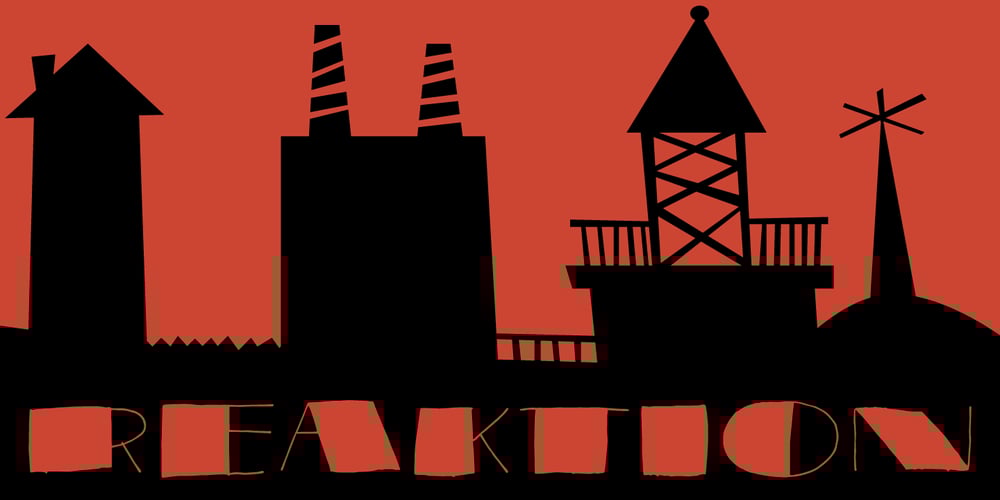
Reaktion
Reaktion font
Reaktion Font Family was designed by Jakob Fischer and published by PizzaDude.dk. Reaktion contains 2 styles and family package options. Reaktion is a loose handmade Art Deco font. Comes in two different versions: regular (with inline stripes) and black (solid version) The wide design of the font easily fills out a funky headline. Comes with contextual alternates, which means 5 different versions of each letter – also, multilingual support!